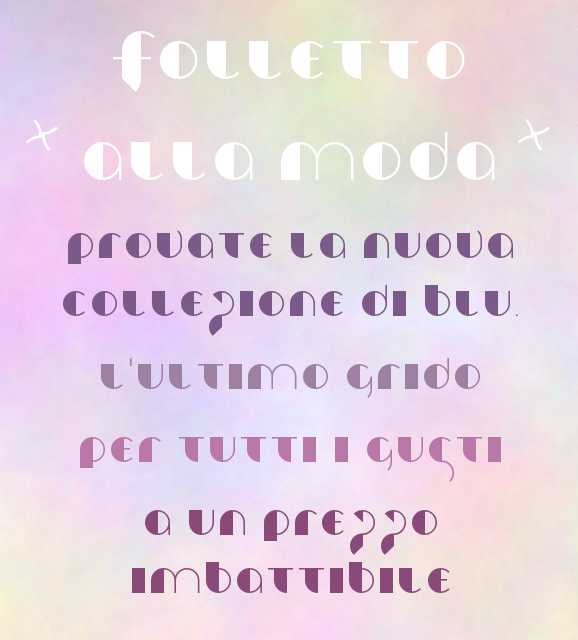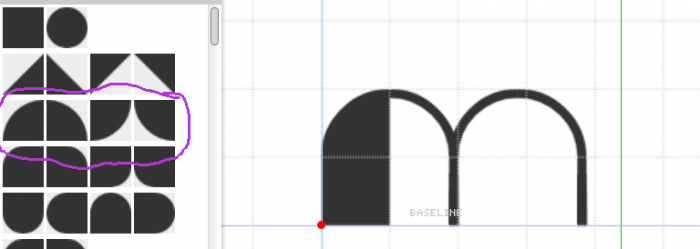
an art deco version of "folletto"...
most artdeco font on fs
Far from, but okay!
Its cool tho, just far too modern looking to be labeled most Art-Deco one.
Very stylish work. The Zs are a little bit forced, IMHO.
How did you make this
@Fluxxor392: i cloned it from my other font "folletto fino" and used the quarter circles and the full black square to make the thick lines